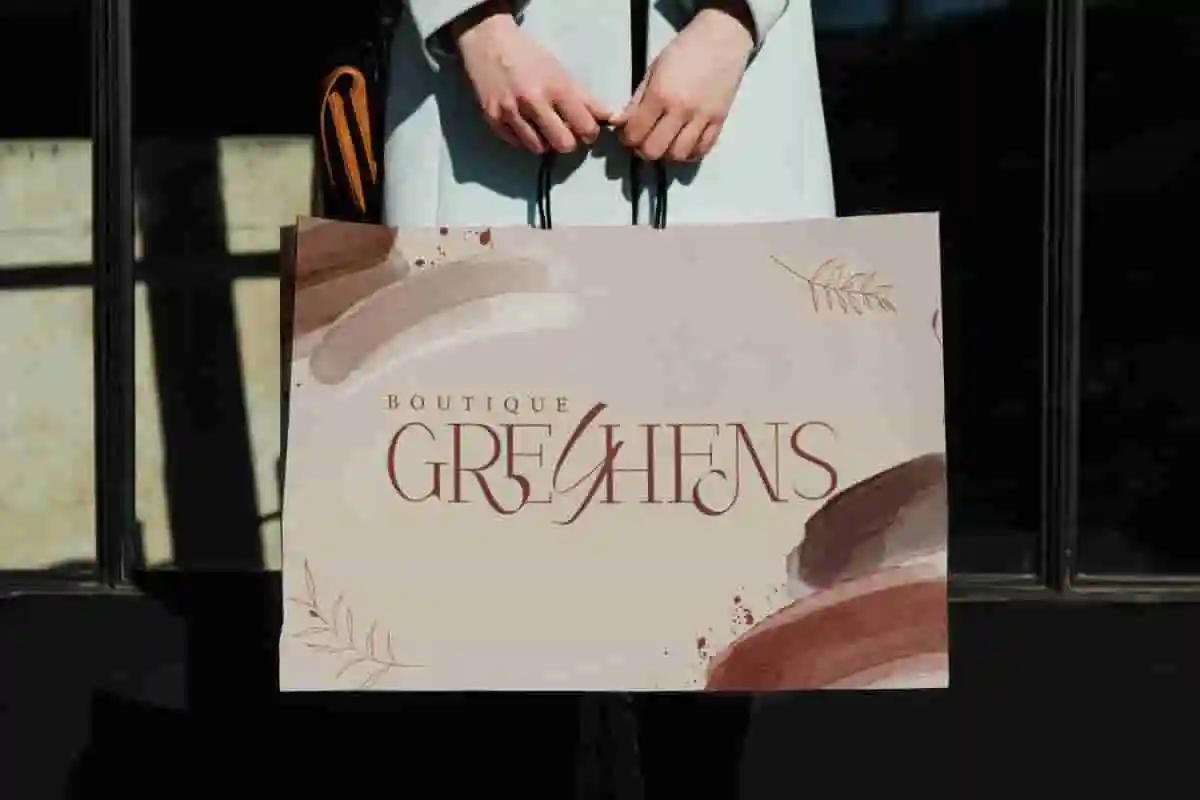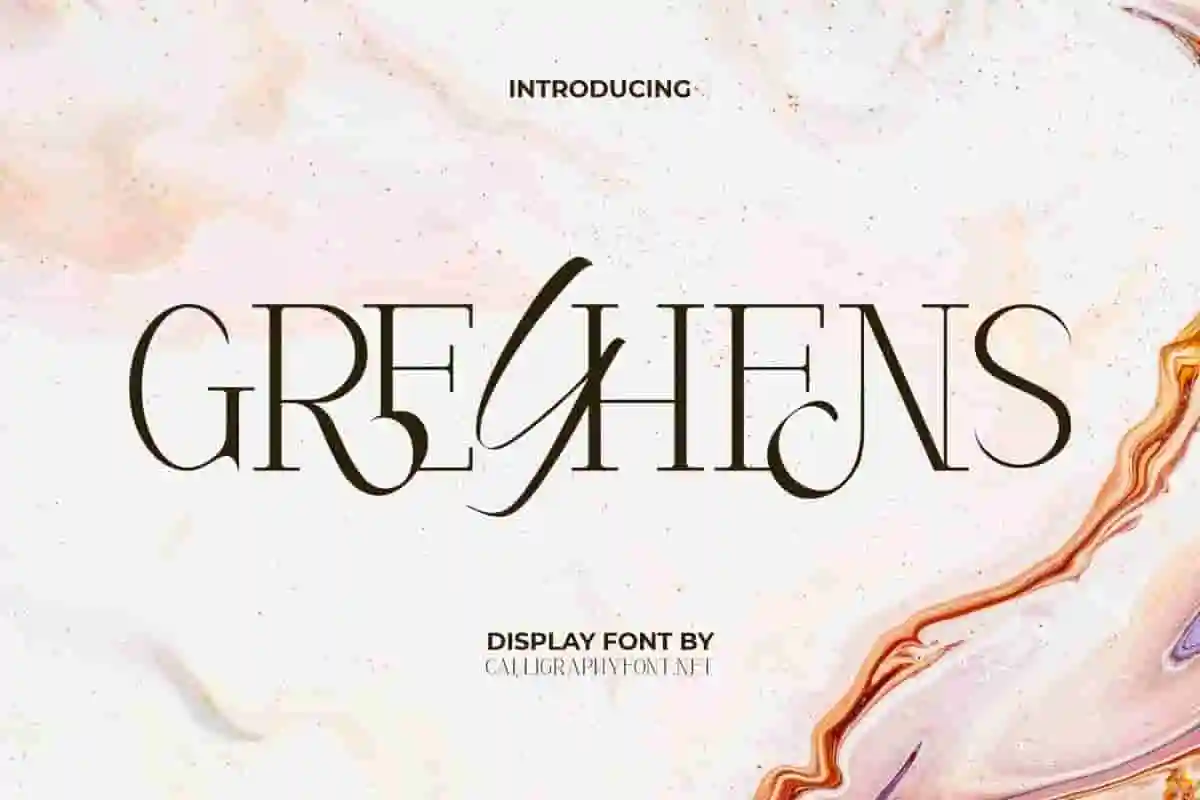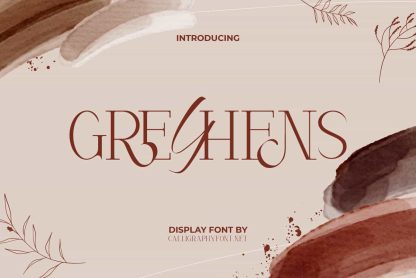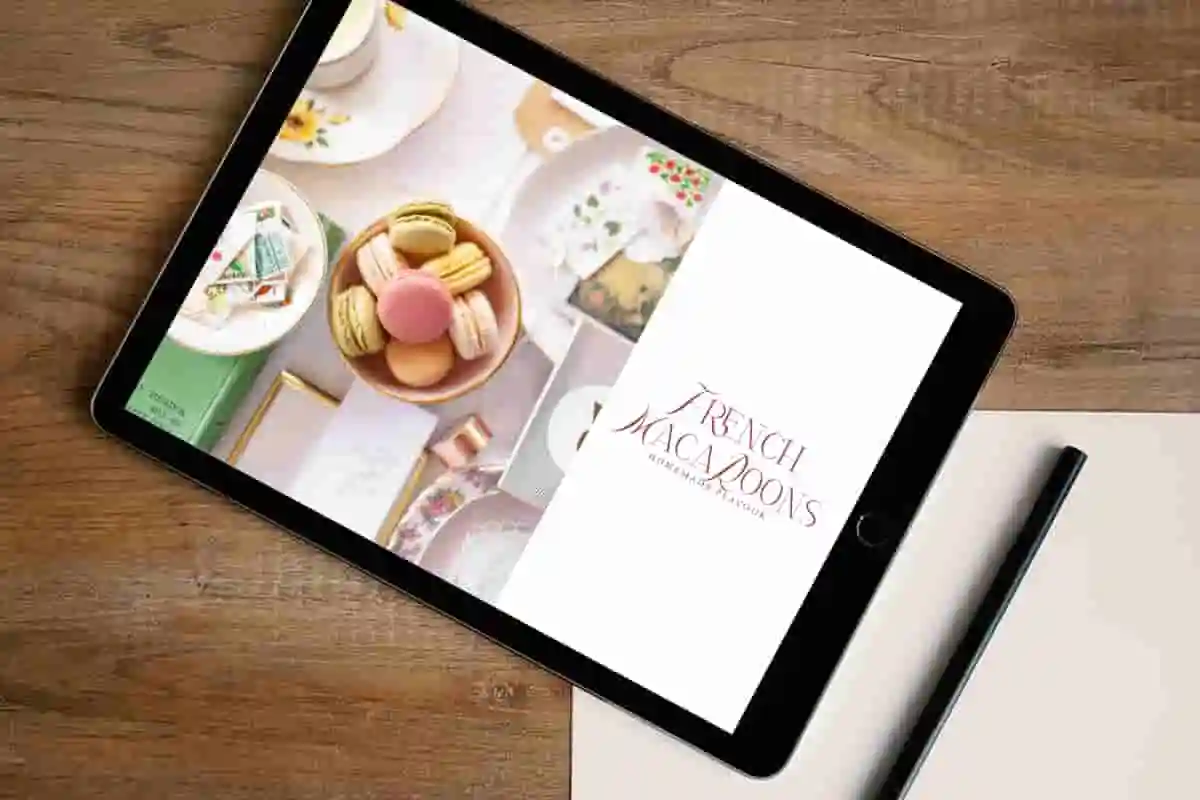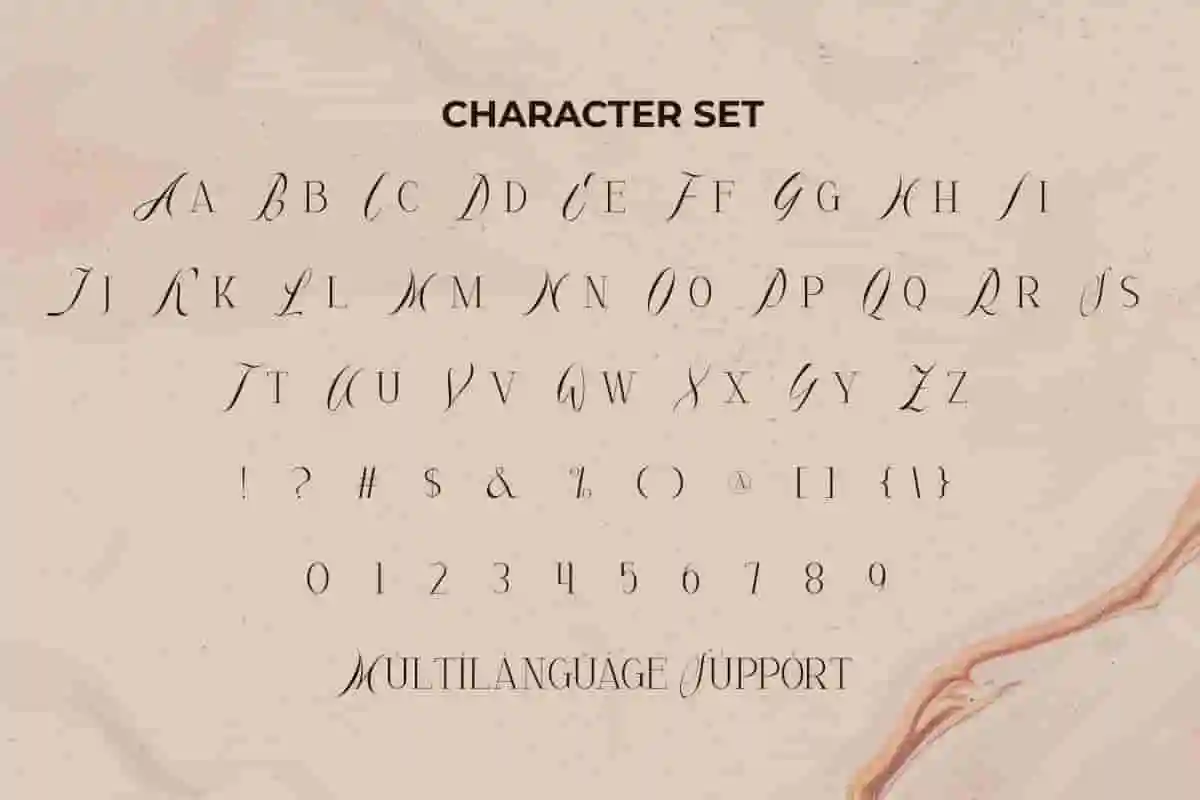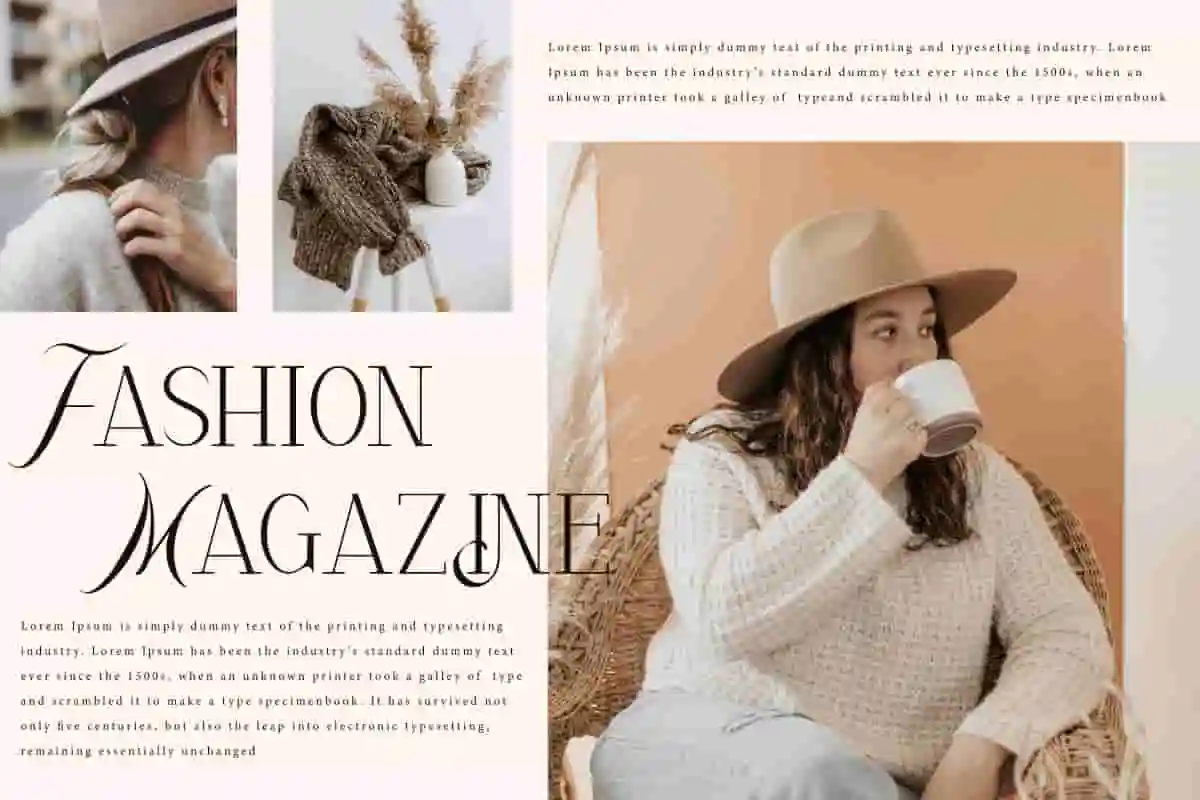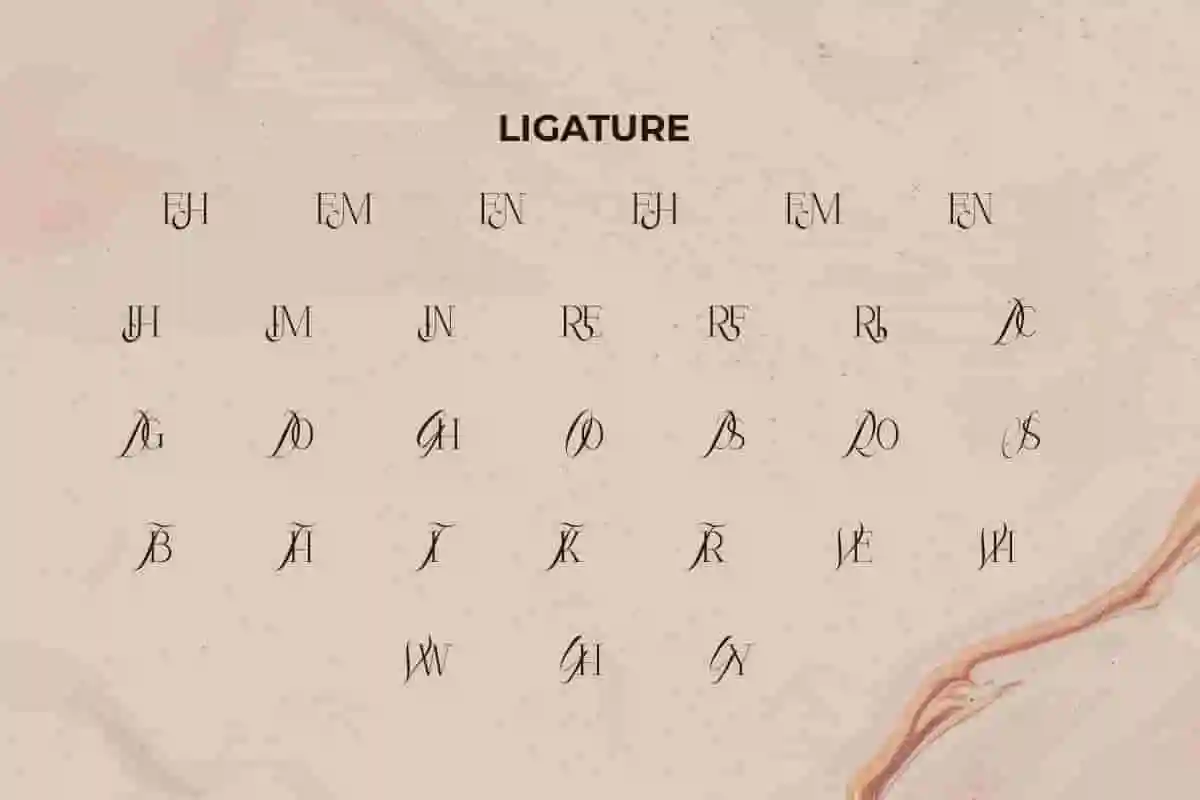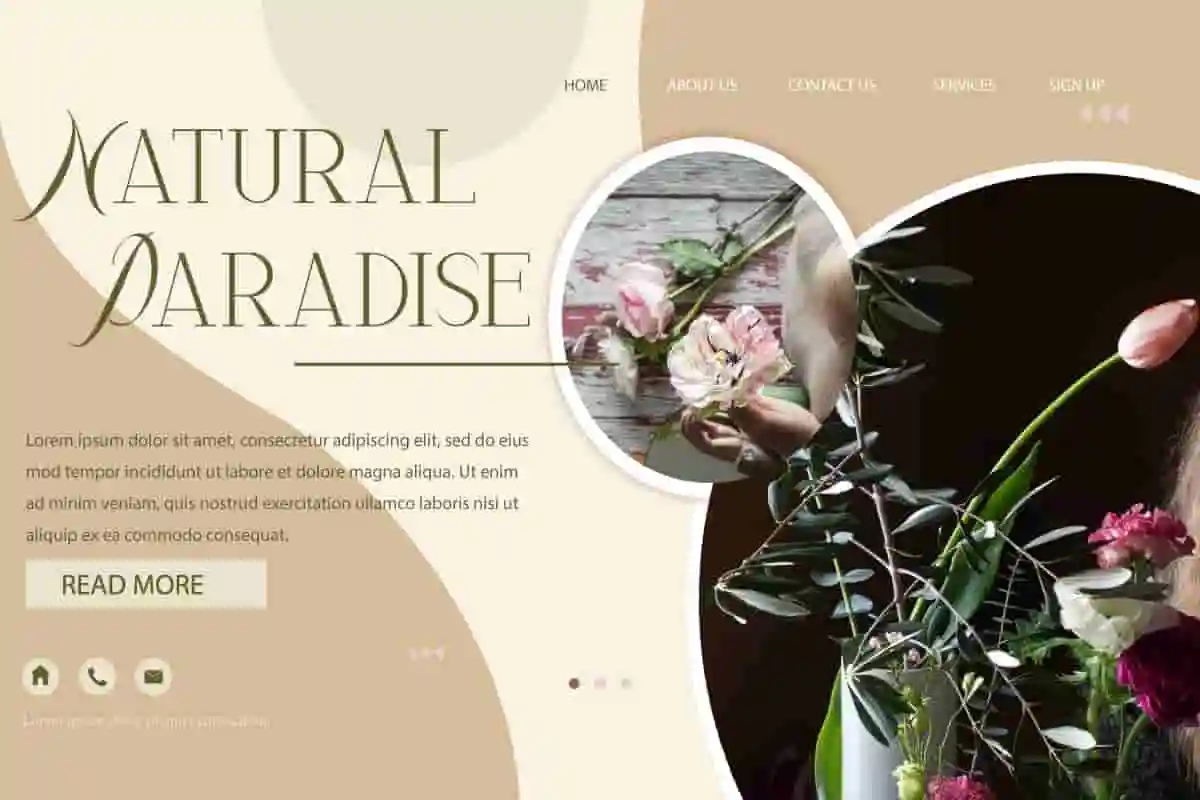
Greyhens Fancy Font
Greyhens Font is a elegant serif display font which will give a expensive impression to each character!
Greyhens Font is a fancy modern display font. This font has a combination of handwritten and serif typefaces that are equally luxurious and impressive. It will be good to complement any project design, such as invitation, custom design, website page, signage, stationery, label, marketing material, poster, cover, flyer, brand image, brochure, screen print, sticker, thank you card, title, and many more!
Greyhens Font can make each of your designs look stunning with its simplicity, so it can be used by various industries, such as fashion, beauty product, restaurant, bakery and pastry, event or wedding organizer, advertising, florist, content creator, graphic design, handicraft, interior design, printing, publishing, etc.
Greyhens Font comes with a full set of Uppercase and Lowercase Basic Characters, Number, a large range of Punctuation, Symbol, and Ligature. It also comes with multilingual character support. Ready to use both on Windows machine or Mac with simple installations. It’s tested to work well in the Adobe Apps (Illustrator, Adobe InDesign, Adobe Photoshop) CorelDraw, and others. PUA Encode Characters means you can access all the characters easily – Fully accessible without additional design software.